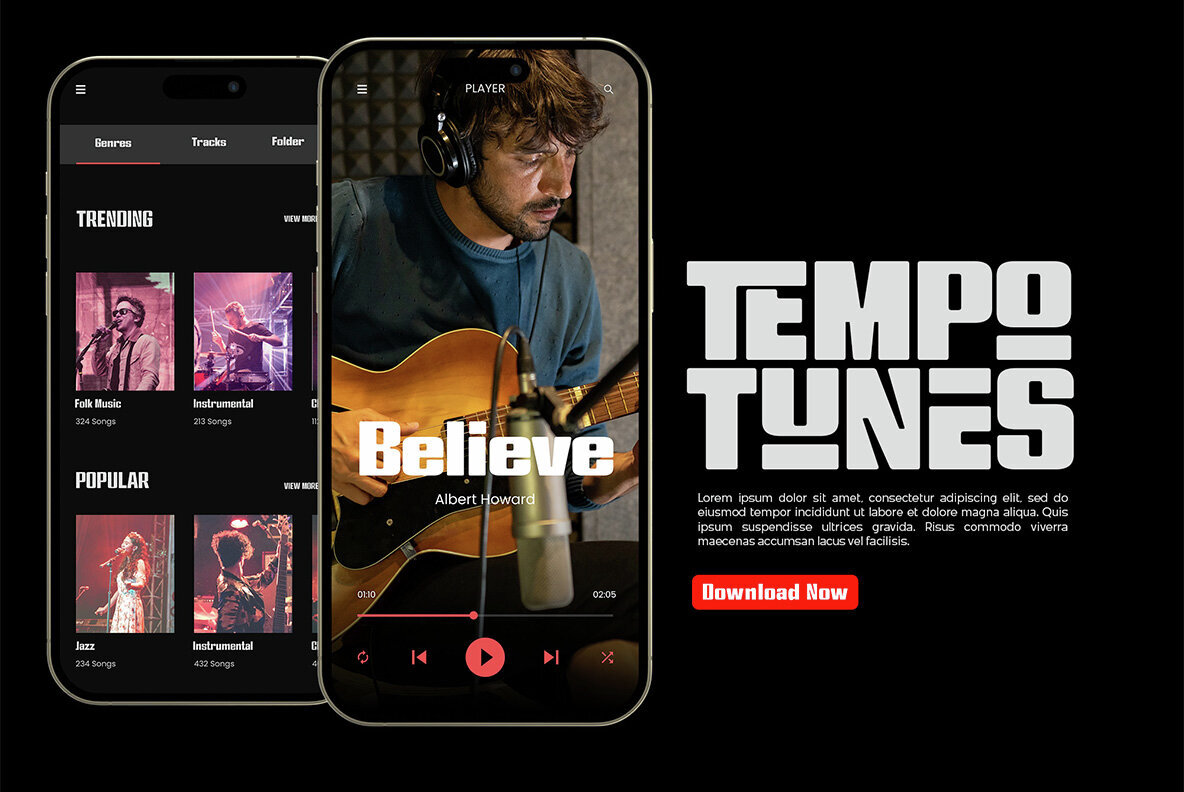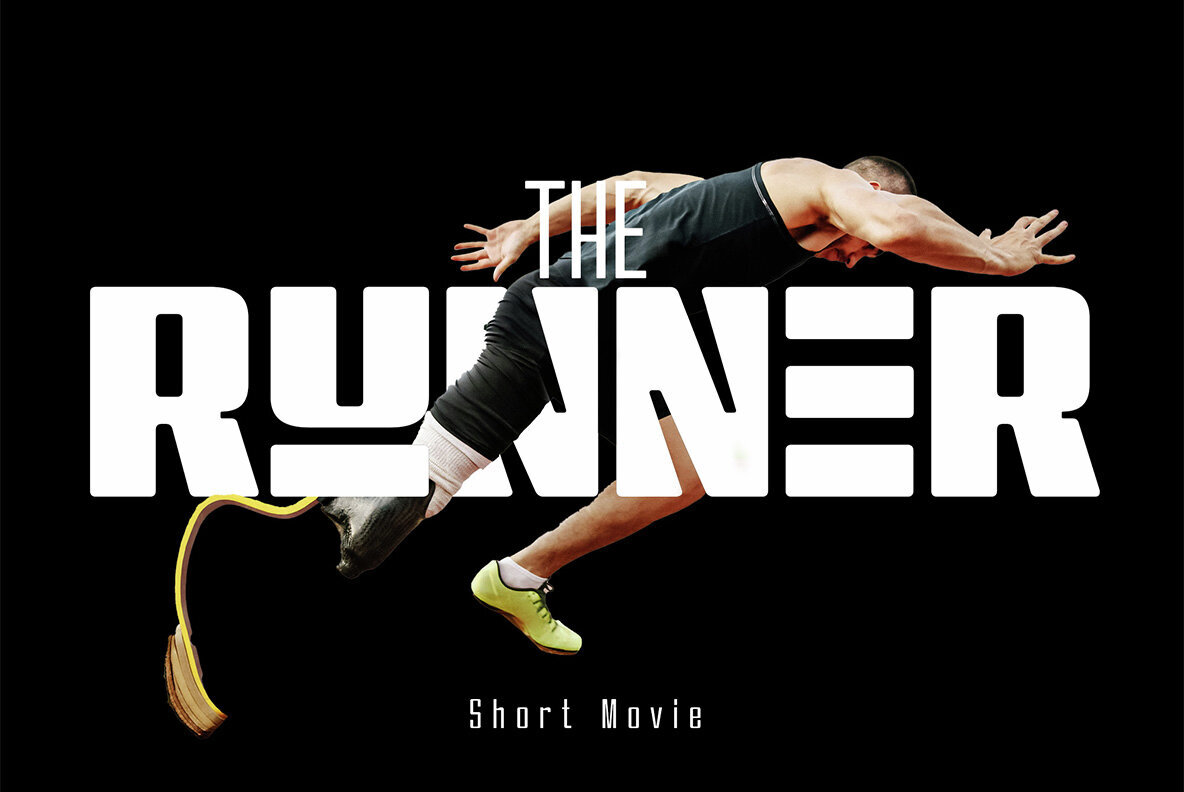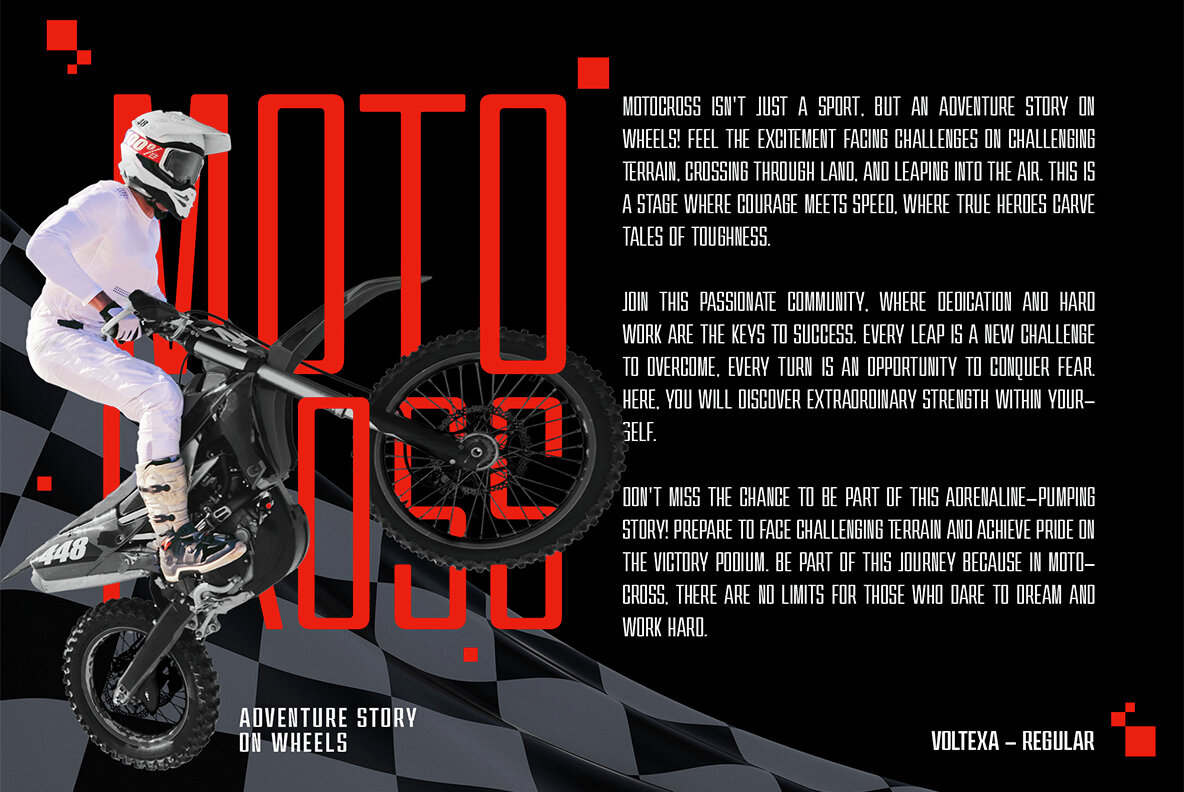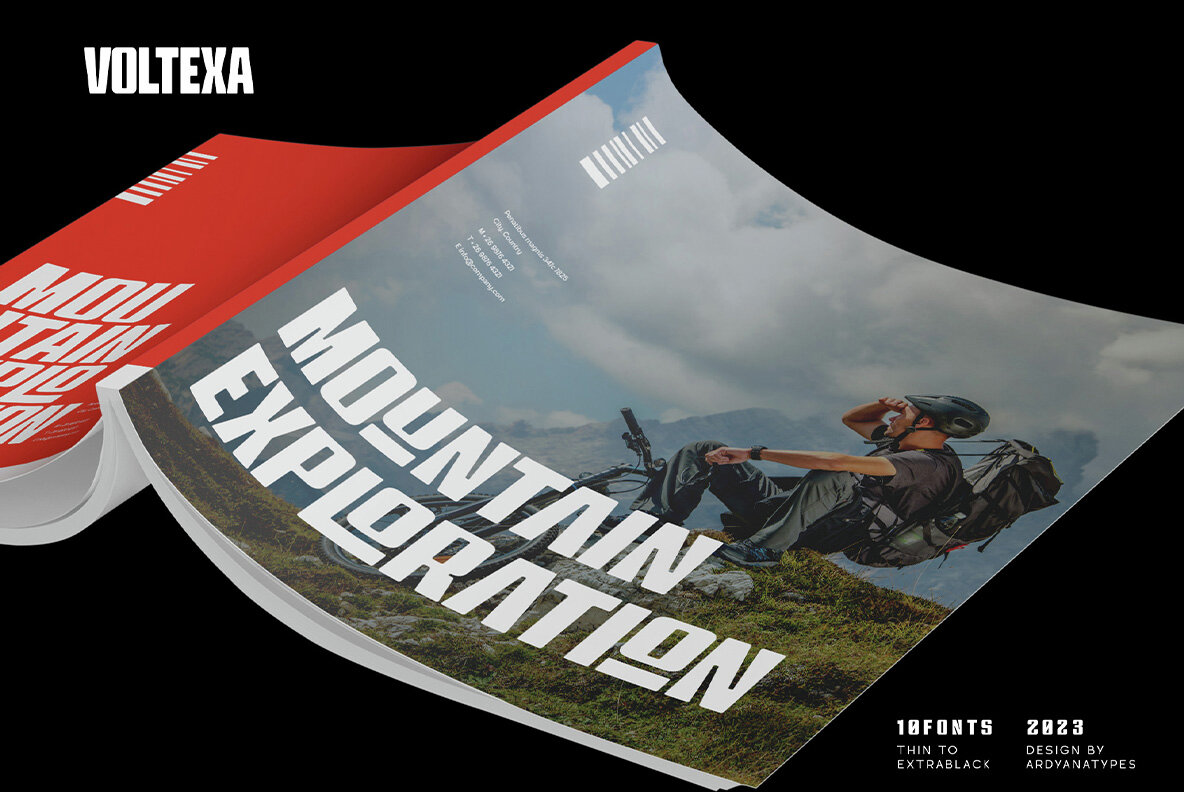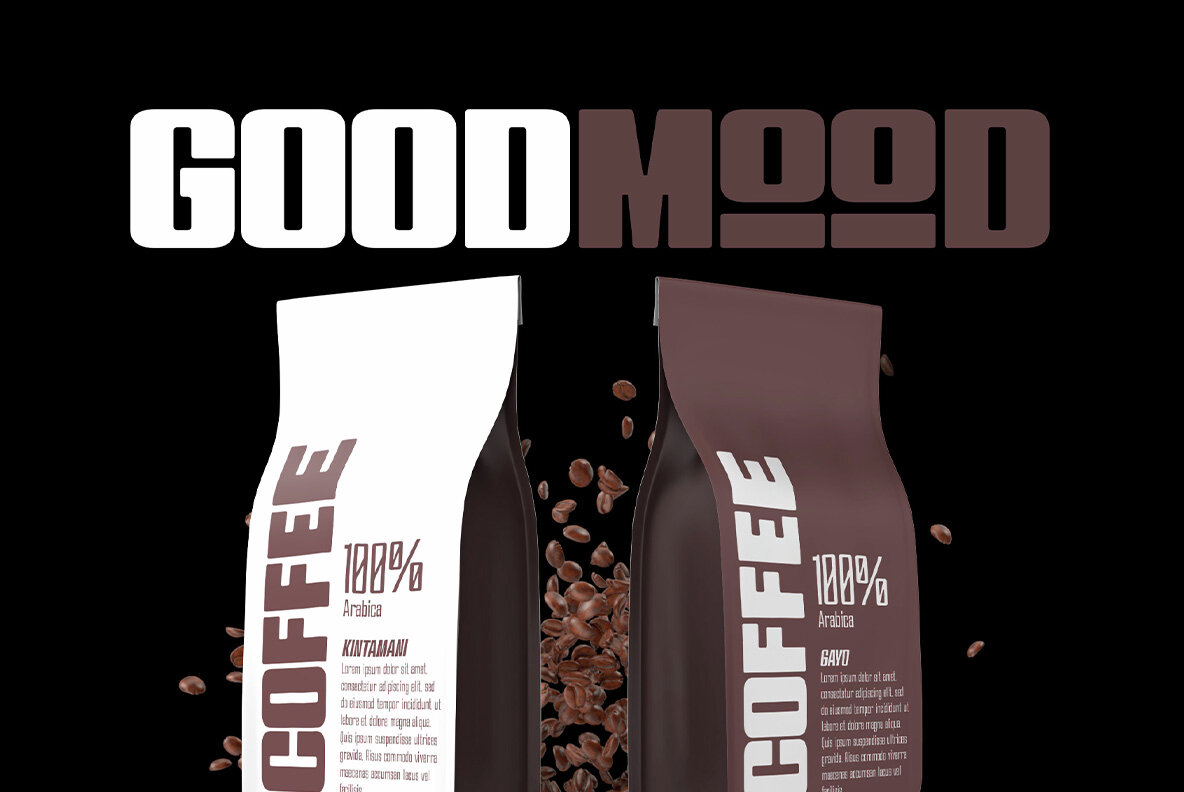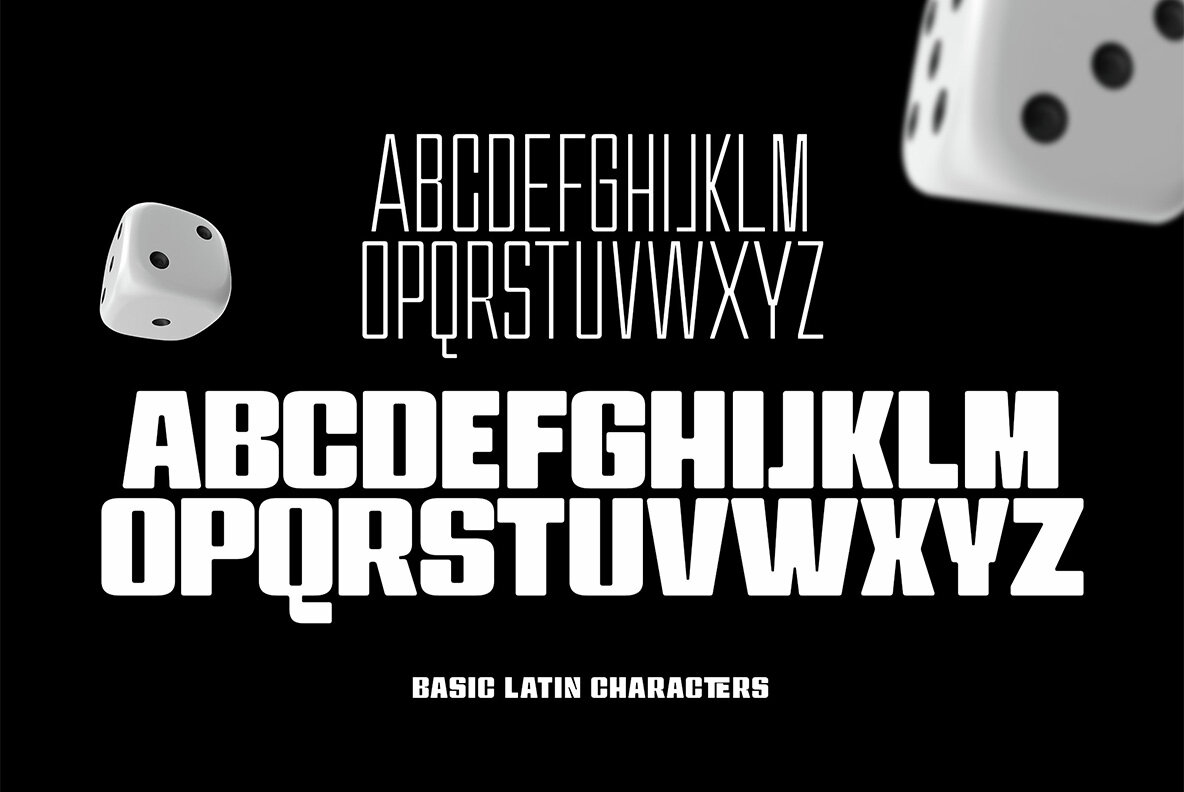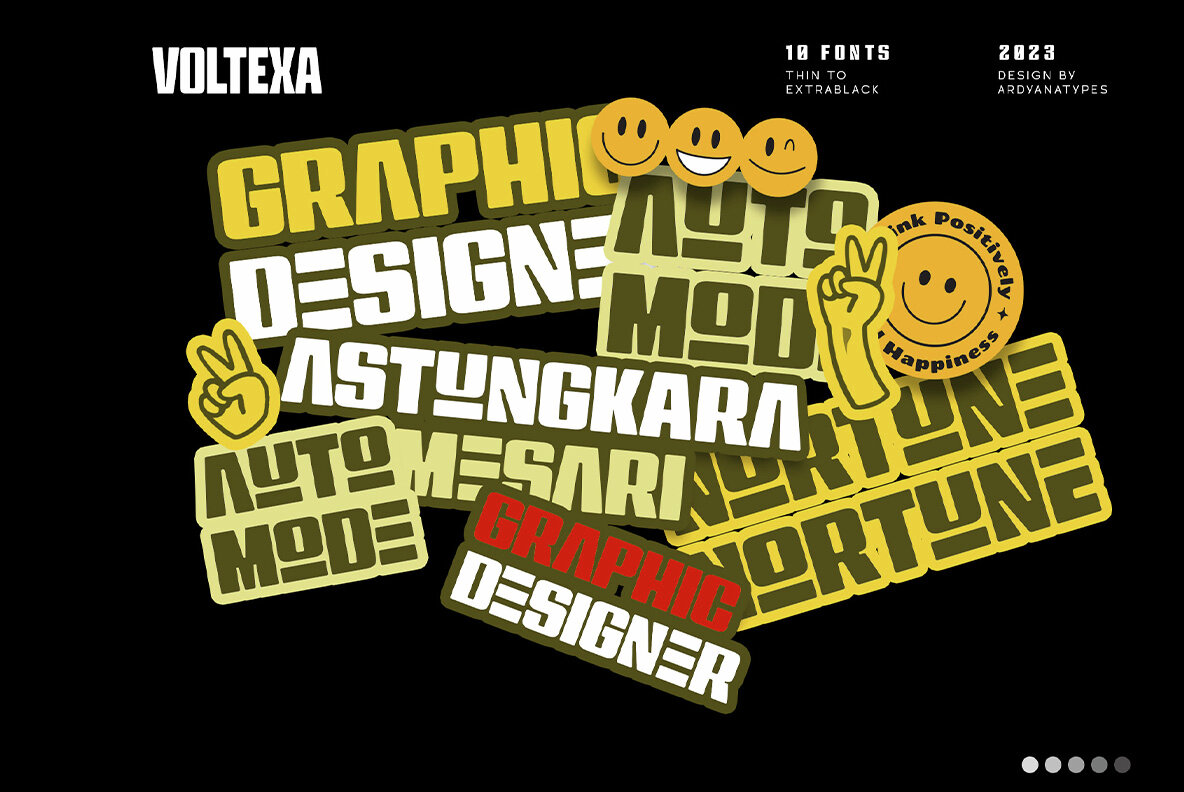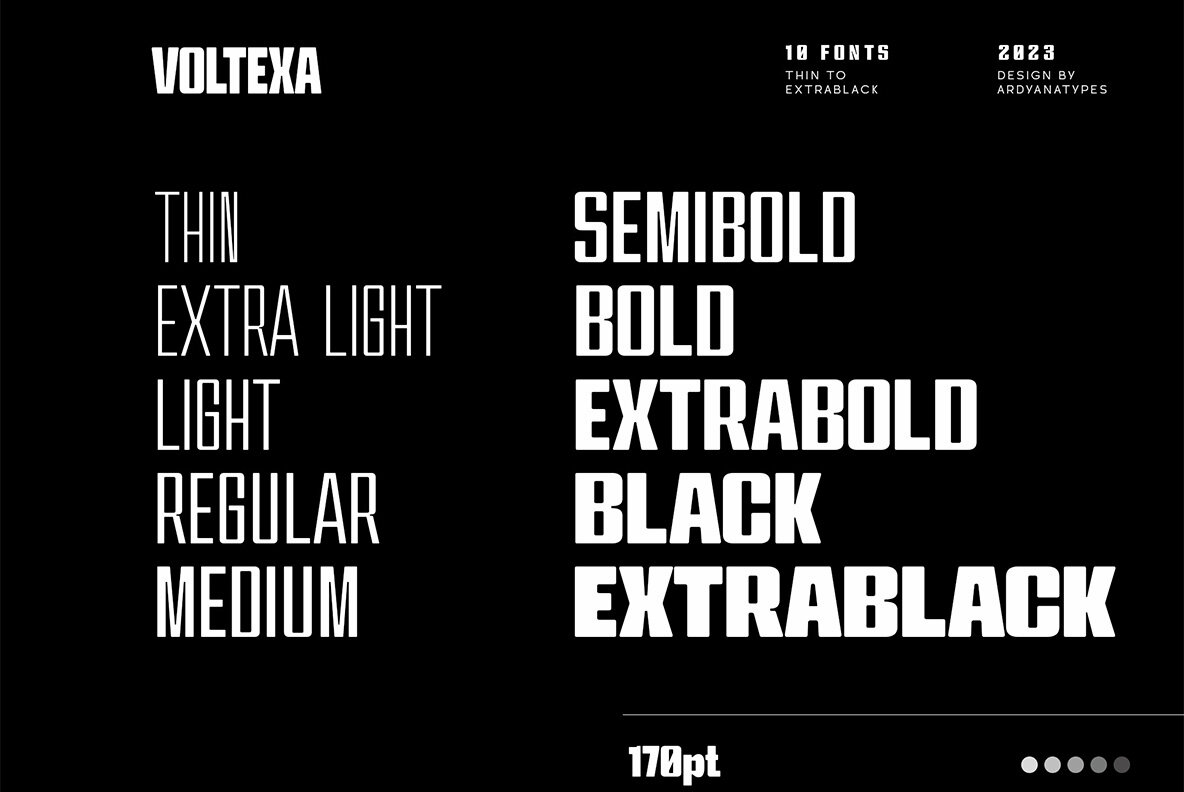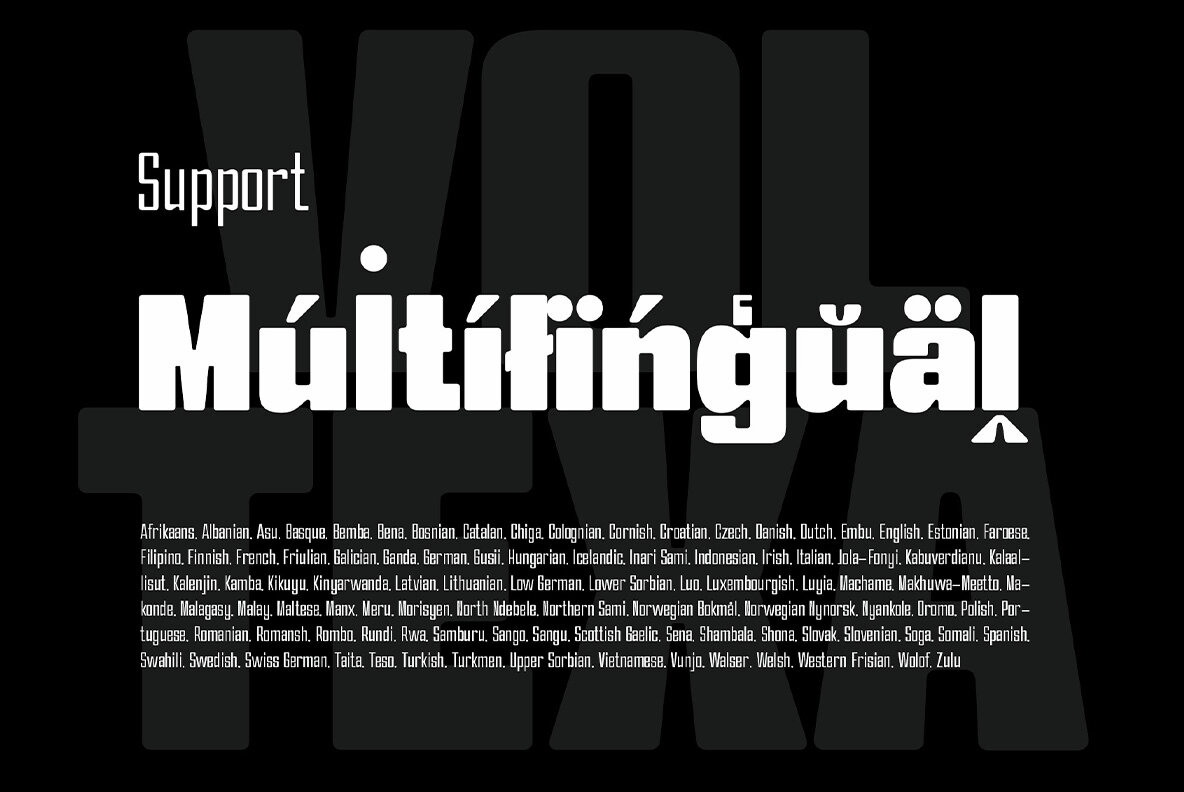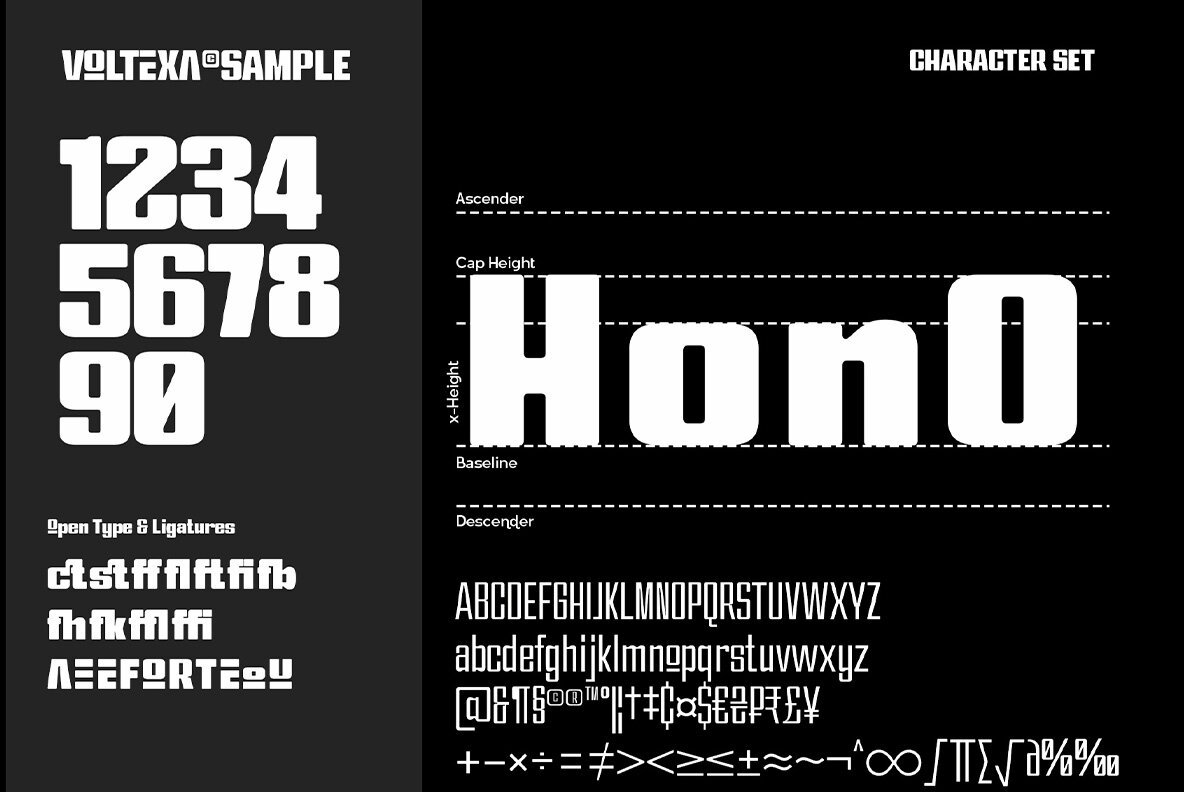
Voltexa Font
Voltexa is a sans-serif font that offers 10 thickness levels, ranging from thin to extra black. Designed with a bold and firm style, it aims to provide a broad range of options for every designer. What sets Voltexa apart are its sharp curves in each letter, creating an elegant and modern yet strong impression. Tailored to meet diverse design needs, Voltexa can adapt to various contexts. With 10 available thickness levels, designers have the freedom to express their creativity limitlessly. This font also comes with OpenType features for ease of use and flexibility. Voltexa also supports multilingual use, allowing it to be utilized in various languages. Let's bring forth inspiring and powerful designs using the Voltexa font. With its 10 available thickness levels, this font offers designers the opportunity to create unique and standout works. The distinctiveness of each letter will enhance the aesthetic value of every design project. Use Voltexa to add an elegant, modern, and assertive touch to your creative works. With its comprehensive features and multilingual capabilities, this font will be a loyal partner in expressing your design ideas and visions into extraordinary works.